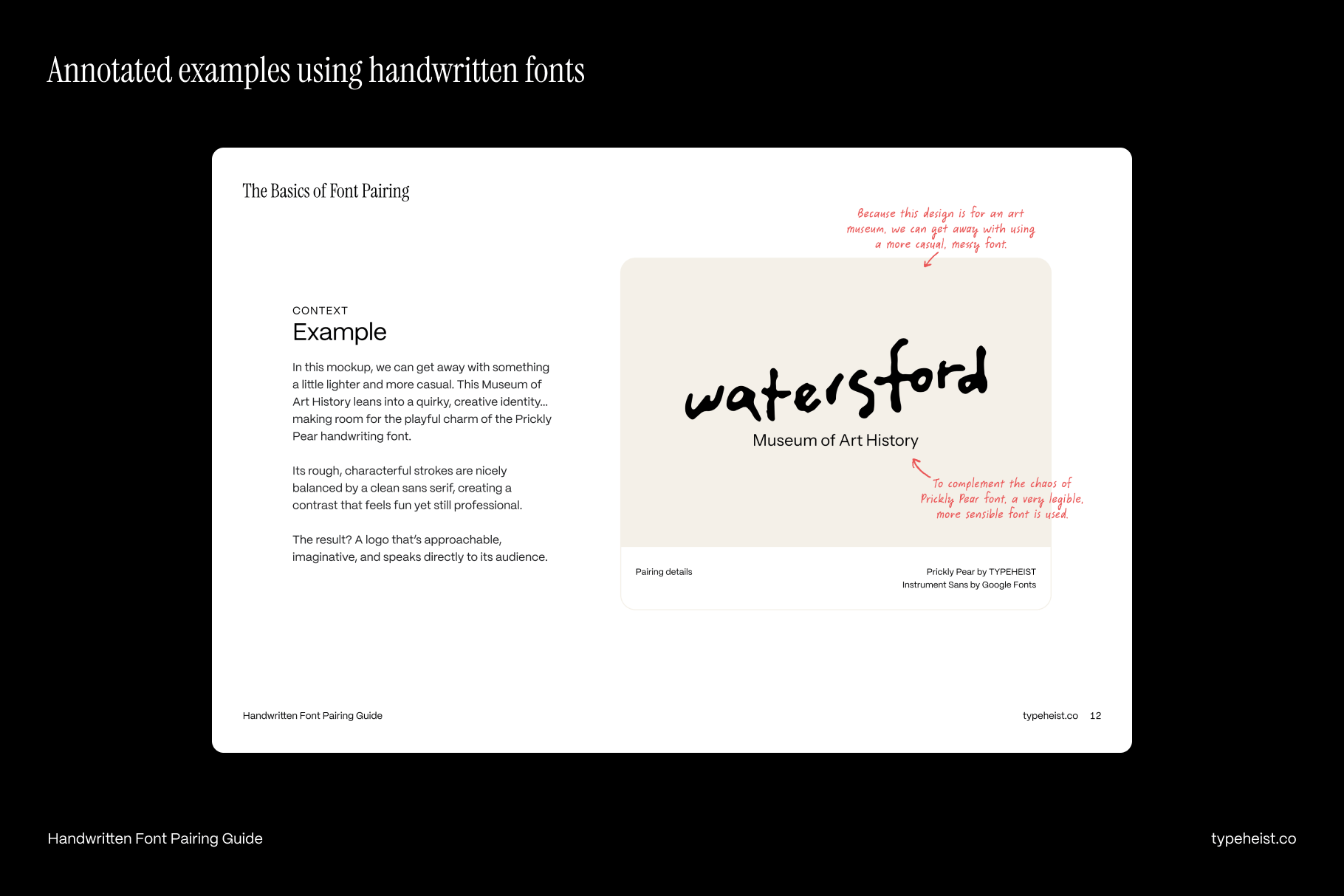
The new Handwritten Font Pairing Guide is here 🥳
Handwritten fonts. They can be bold. Messy. Cute. Charming. Feminine. They’ve got personality. But pairing them? That’s a whole different can of worms. So… I've made something to help.
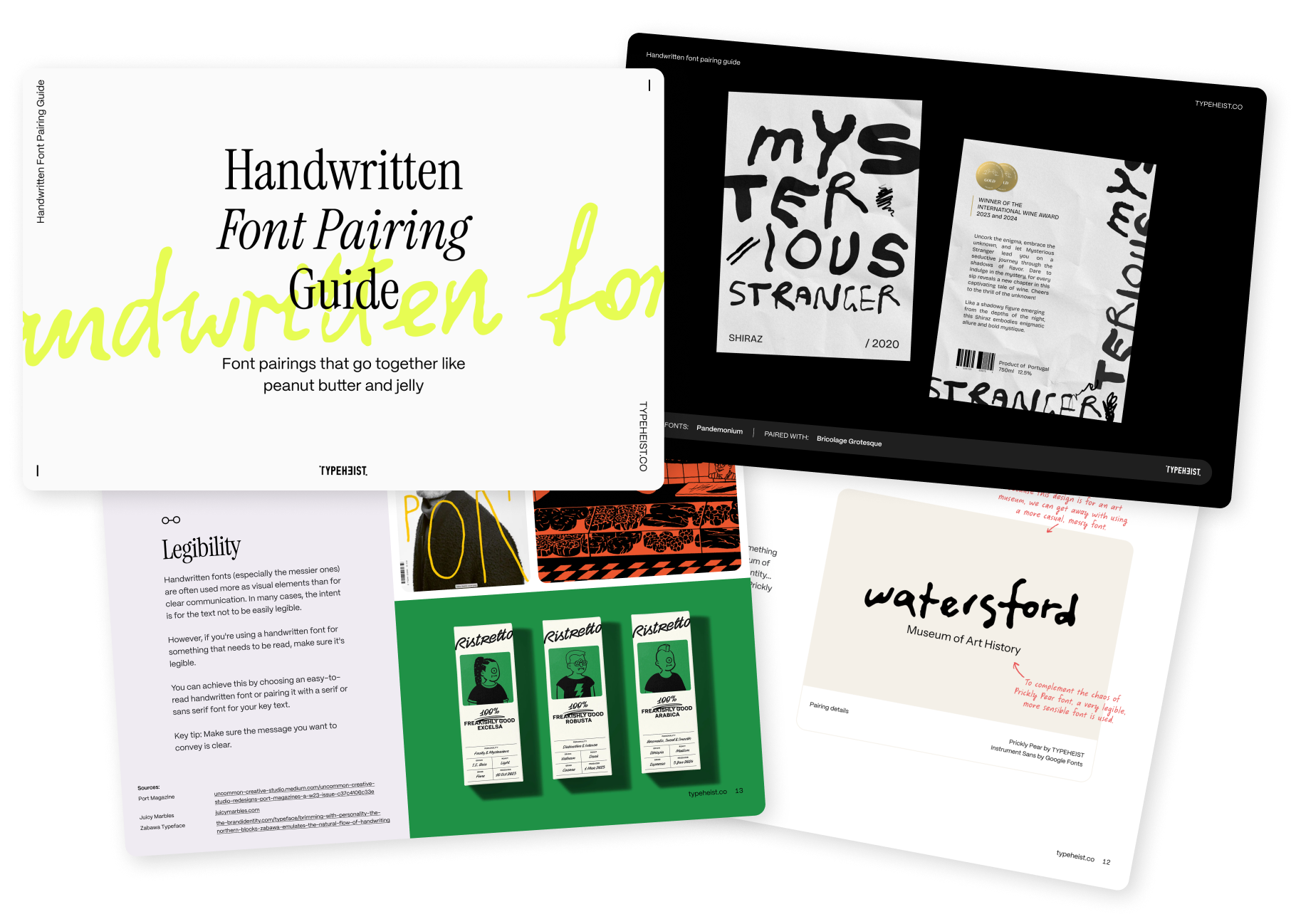
Want to know how to pair handwritten fonts?
The Handwritten Font Pairing Guide is a 52-page free resource packed with tips, tricks and inspiration to make pairing handwritten fonts a breeze. It’s not your average font pairing guide—it’s made specifically for those weird and wonderful handwriting styles we all love but aren’t always sure how to use well.
In this guide you'll find:
- Principles for pairing handwritten fonts (Visual hierarchy, Contrast, Balance, Context, Legibility)
- Unique handwritten font pairing inspiration (Chaotic, Editorial, Contemporary, Fun, Rustic)
- Resources & references
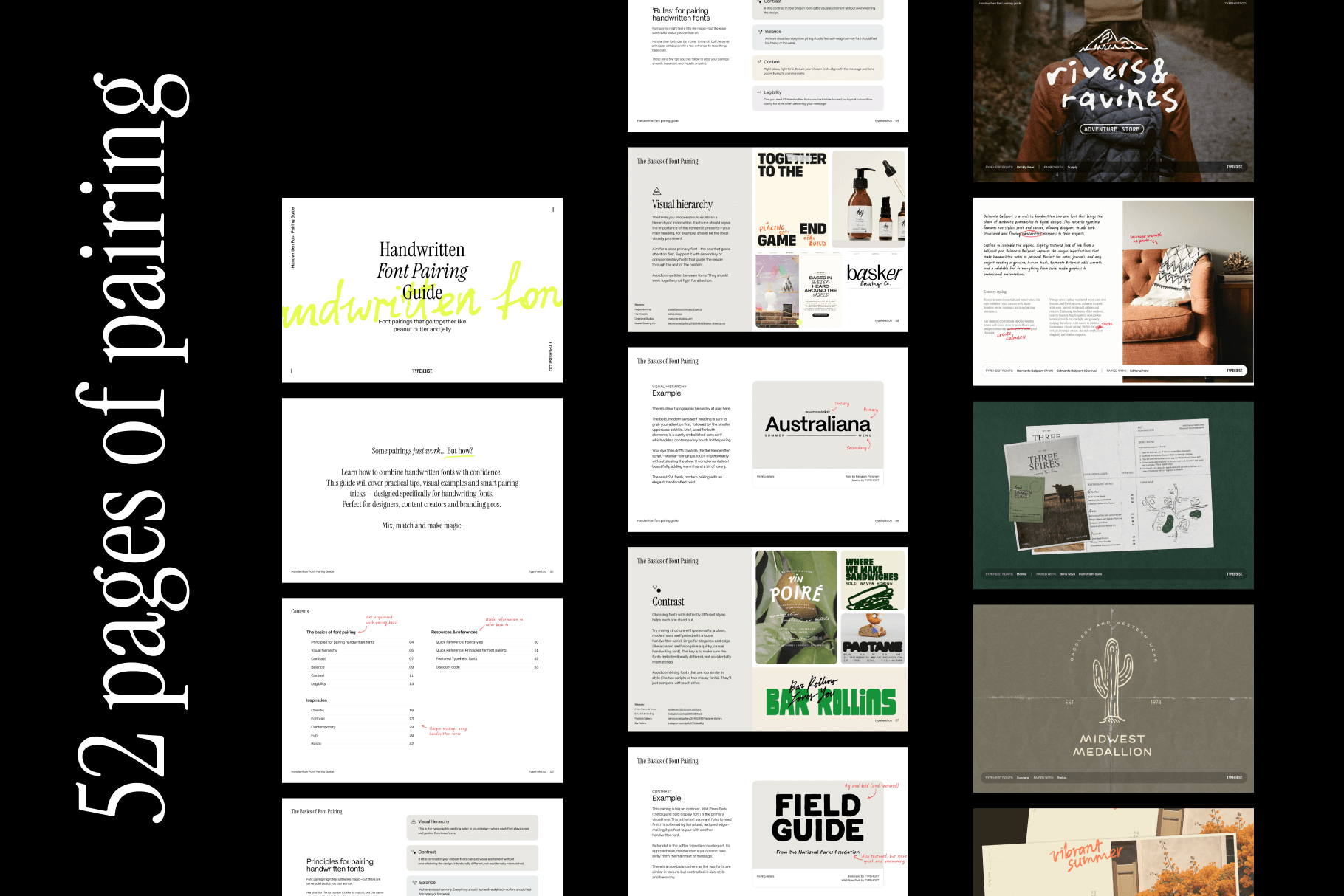
For each pairing principle I've included actual examples using Typeheist fonts highlighting what works and why. You'll also find unique pairing inspiration for a number of different design styles to get that creativity flowing.